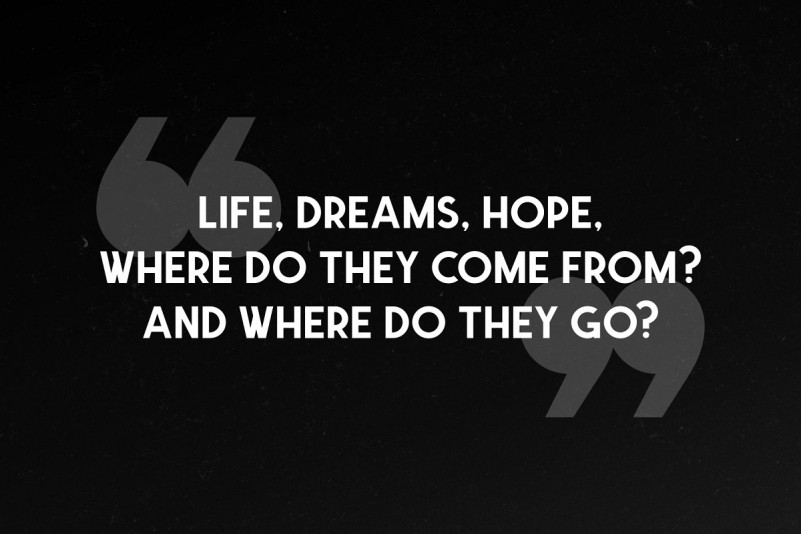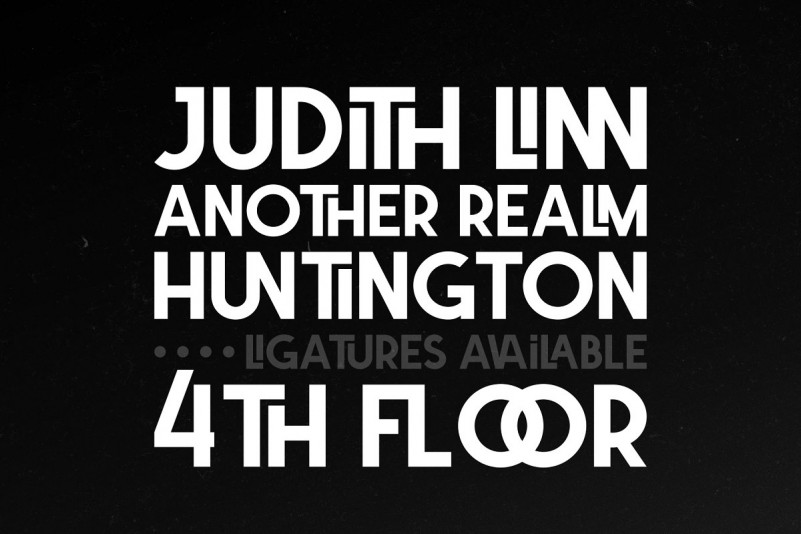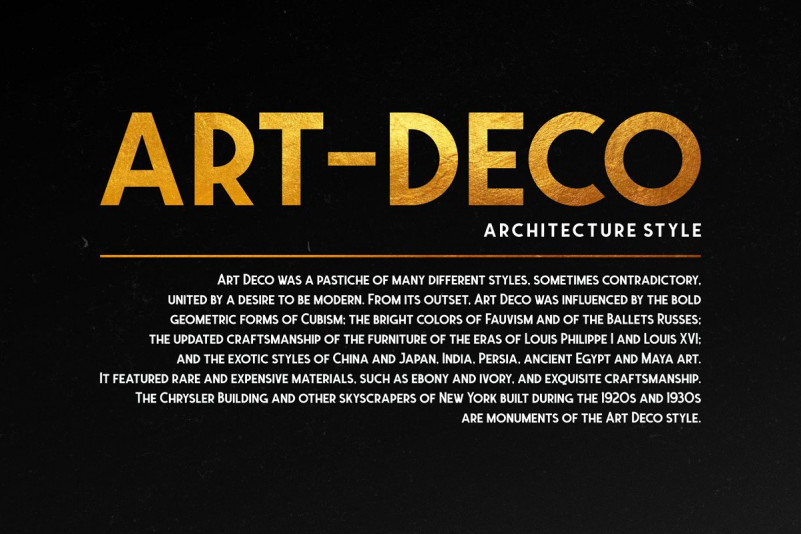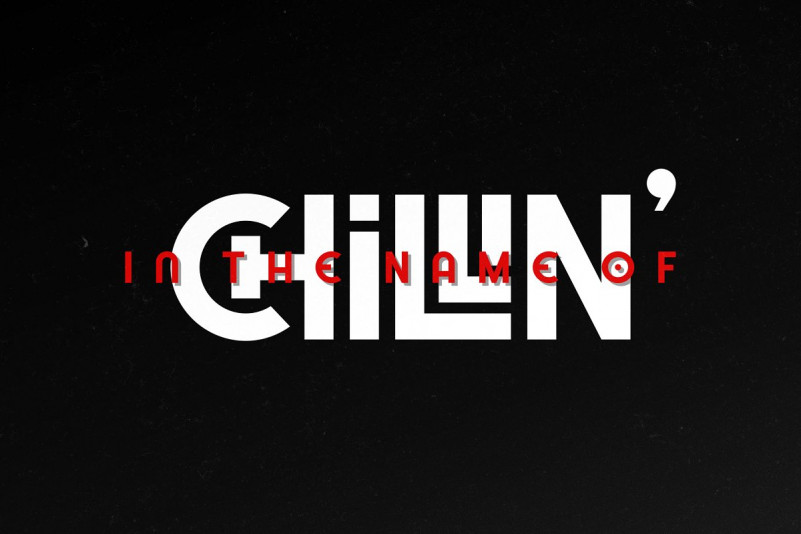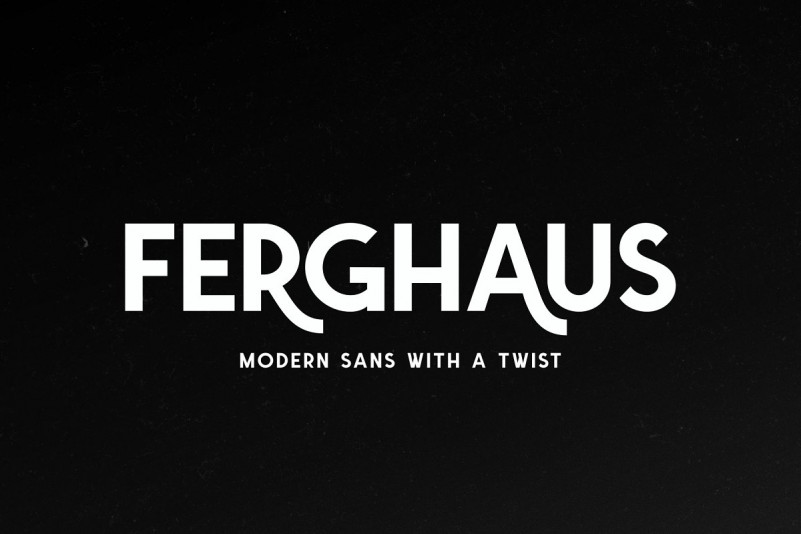
Ferghaus Sans Font
Ferghaus Font – This is a modern sans serif typeface designed for accessibility. The letterforms are designed for maximum legibility! It is designed and shared by Twicolabs Fontdation. Ferghaus Sans Font, a modern sans serif font. This all-caps font is crafted with high attention to the details, gives you a clean and sharp feeling using it on your designs. Packed with so many OpenType features (such as alternate chars, swashes, ligatures, etc), lets you play and explore every possibilities with the letters combo. Ferghaus is highly versatile, suits best for almost everything, whether you’re working on classic themed design, or the modern ones.